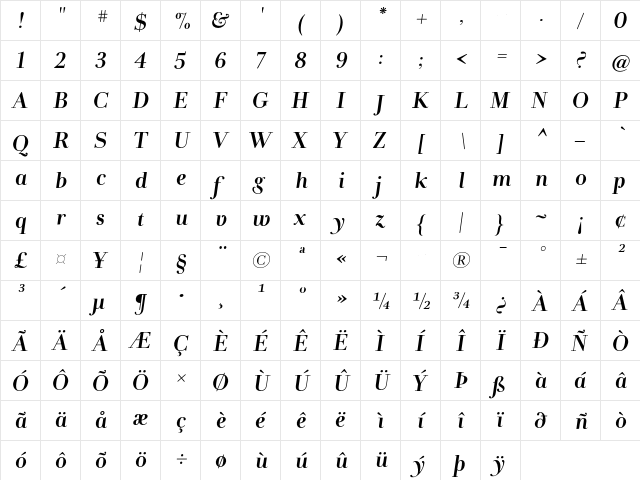
Andrade Pro Bold Italic
| Foundry | Dino dos Santos _DSType |
| Designer | Dino dos Santos |
Design Context for Andrade Pro Typeface
Andrade Pro is a composed and adaptable typeface that performs quietly and consistently across a wide range of design contexts. The dynamic lean of this cut emphasises speed and emphasis in any layout. Its bold stroke weight gives it real presence on the page.
Pro Tip: Try Andrade Pro for annotation and caption copy alongside an upright companion — the contrast in angle creates a dynamic but ordered typographic system.